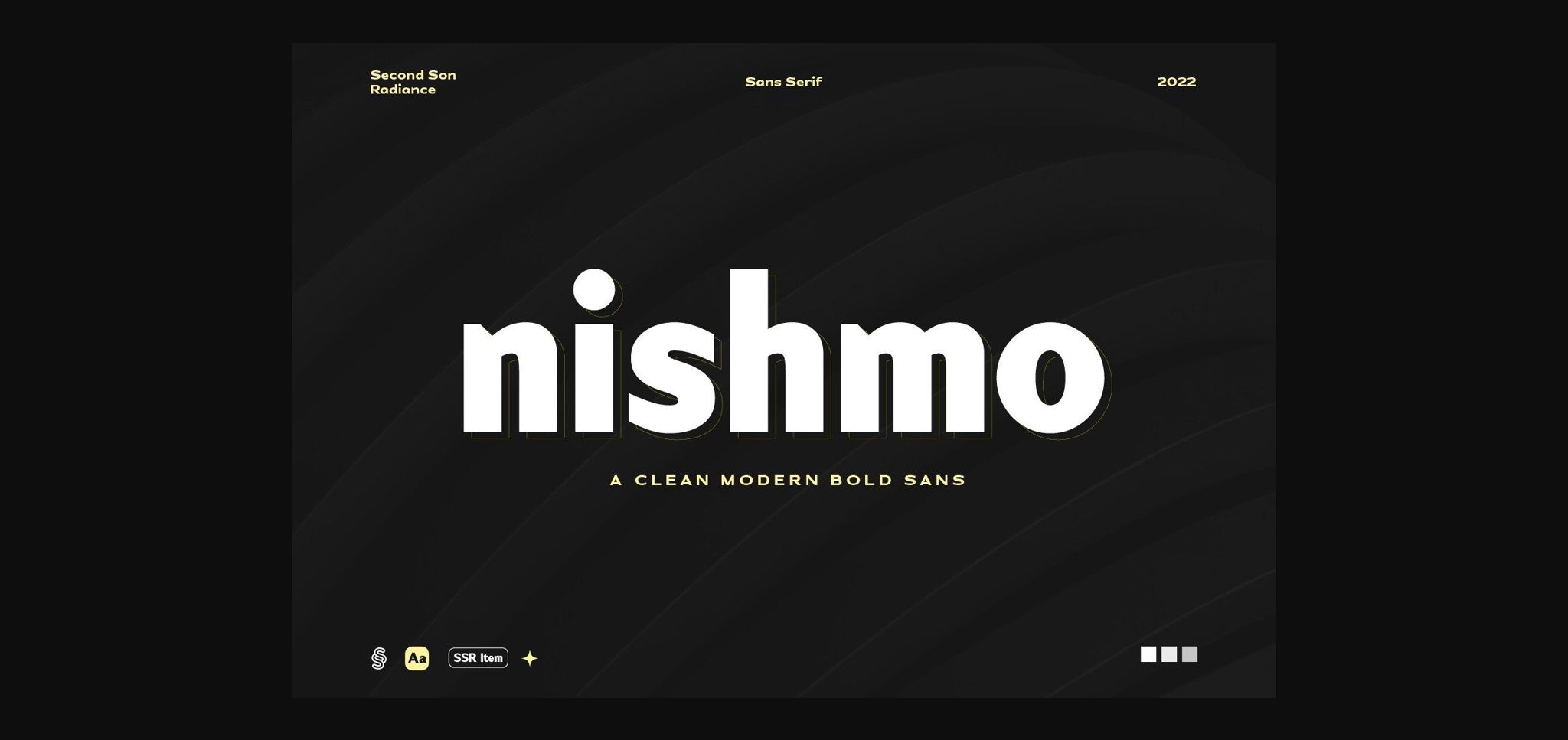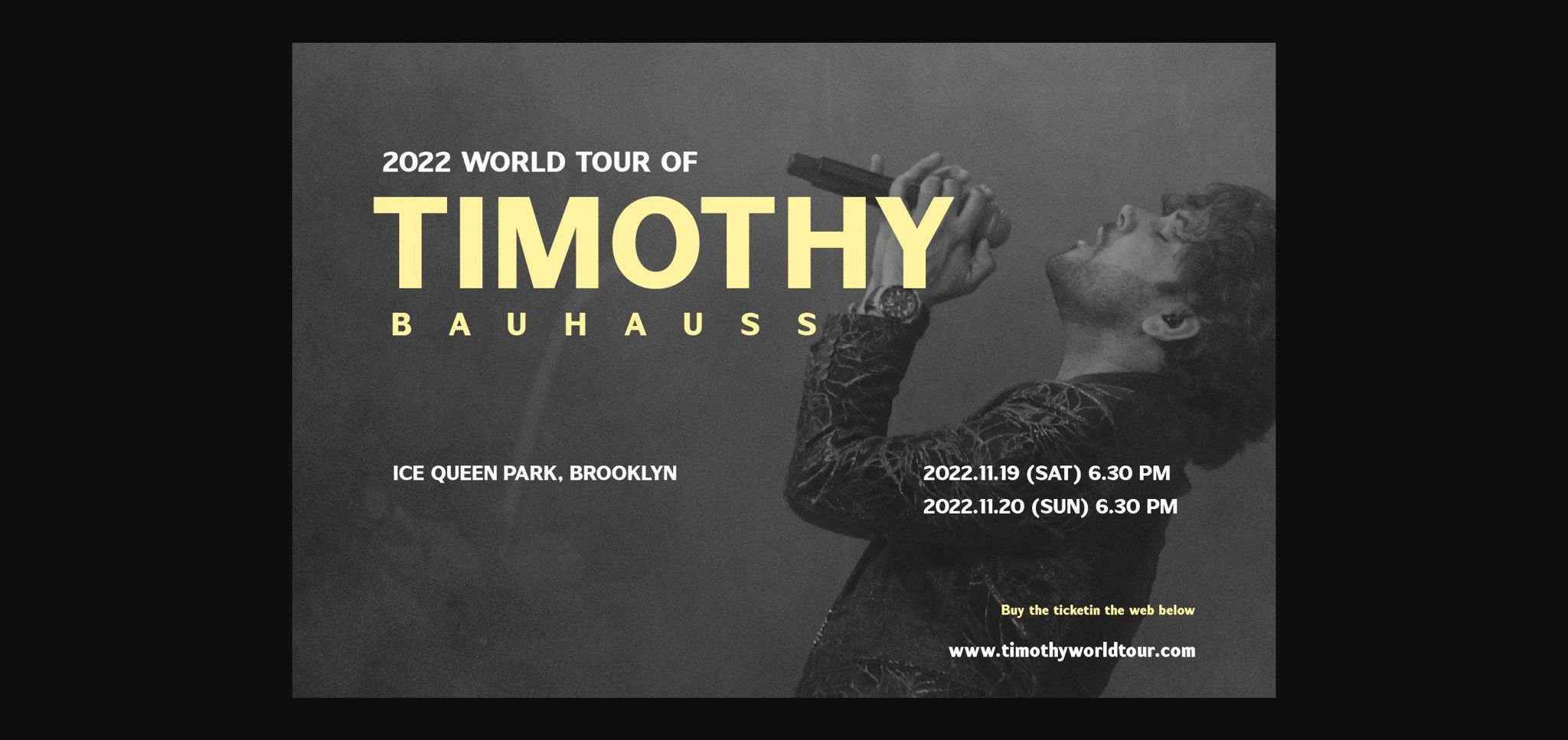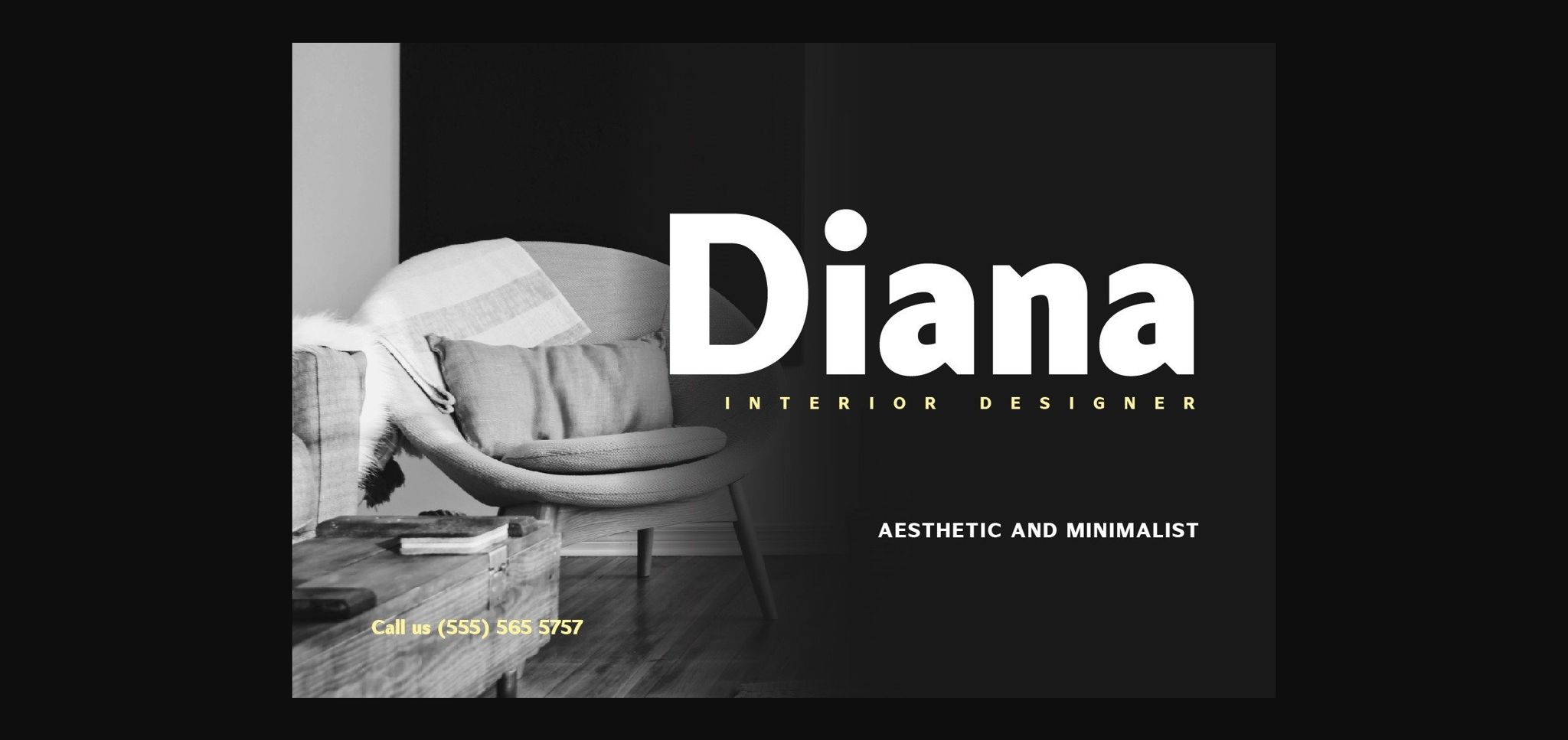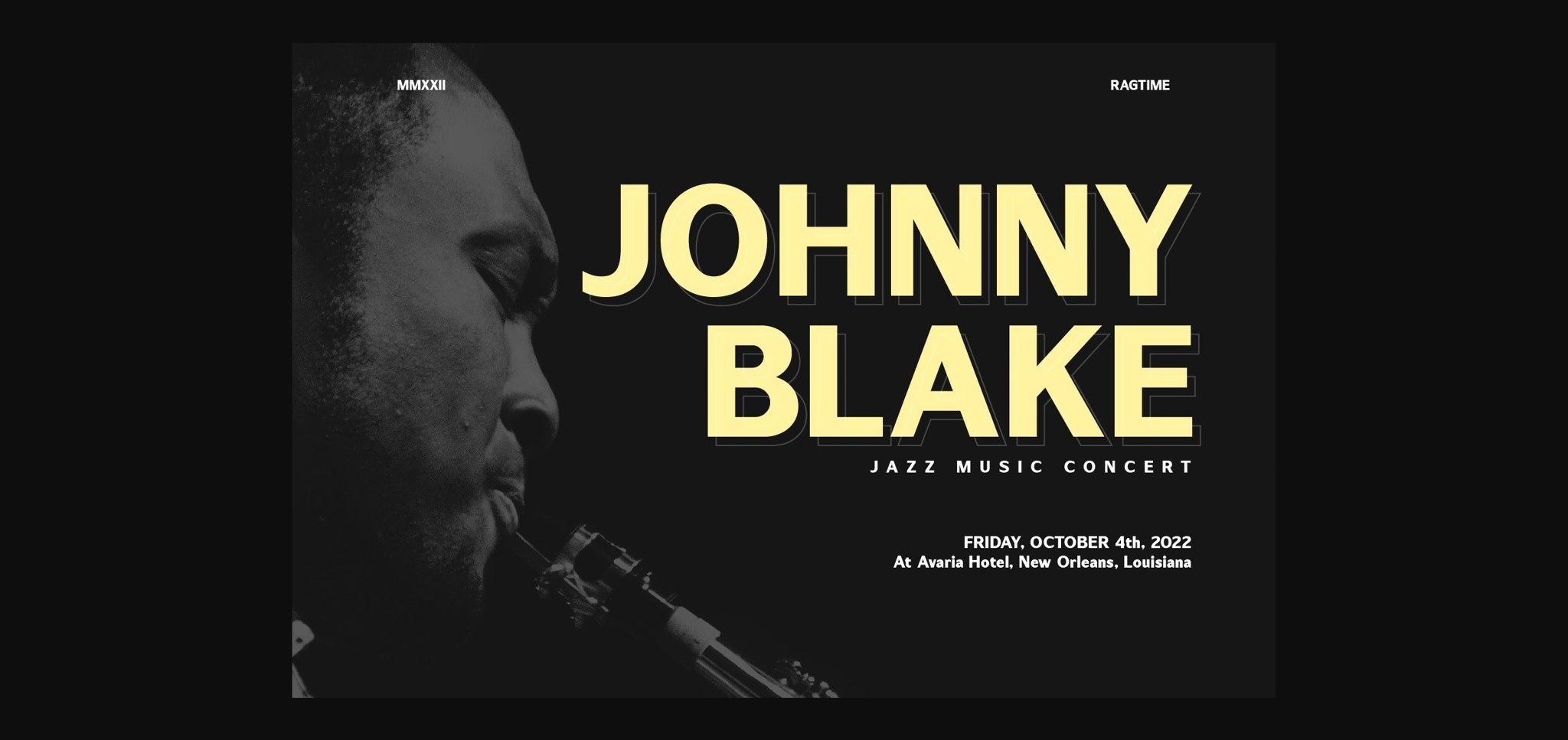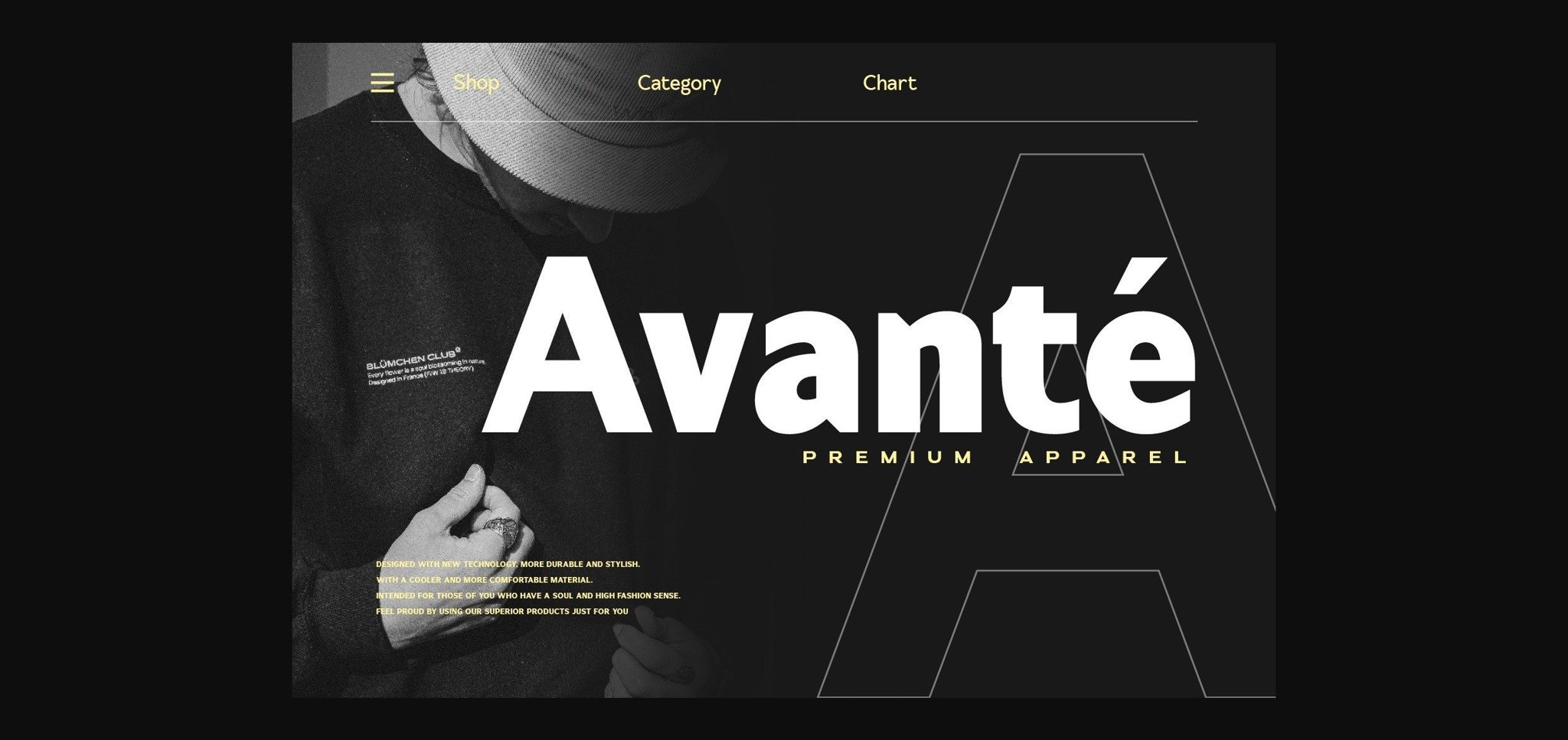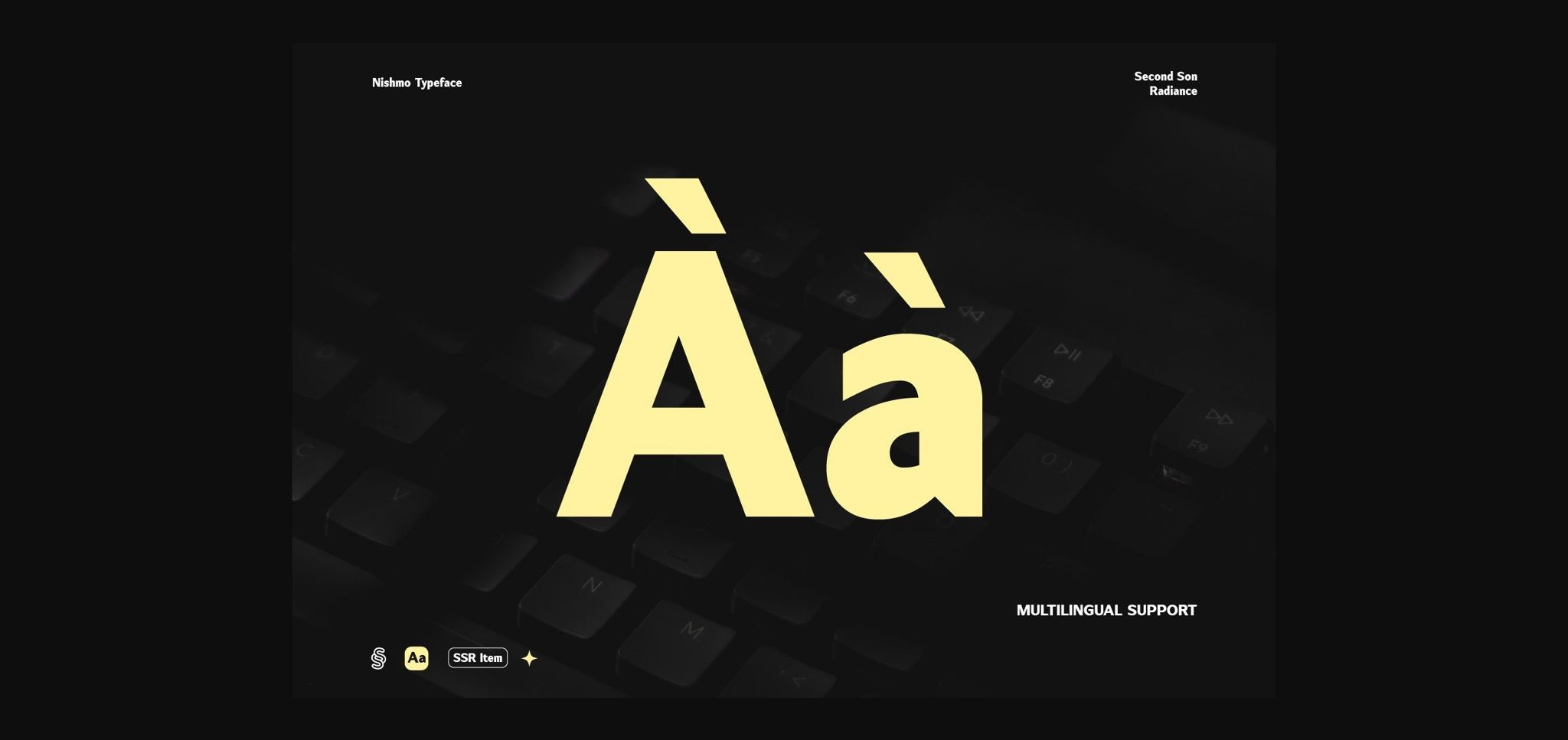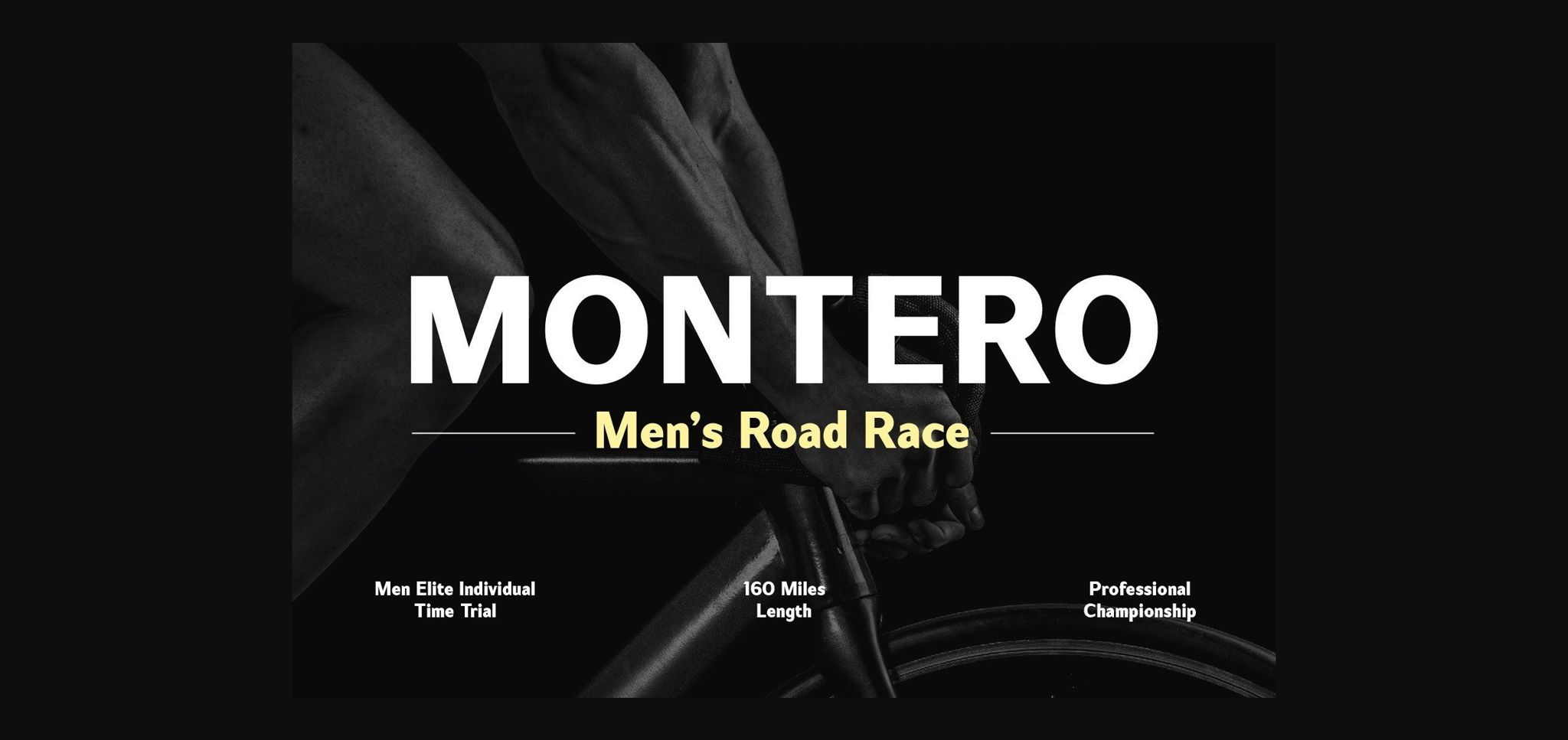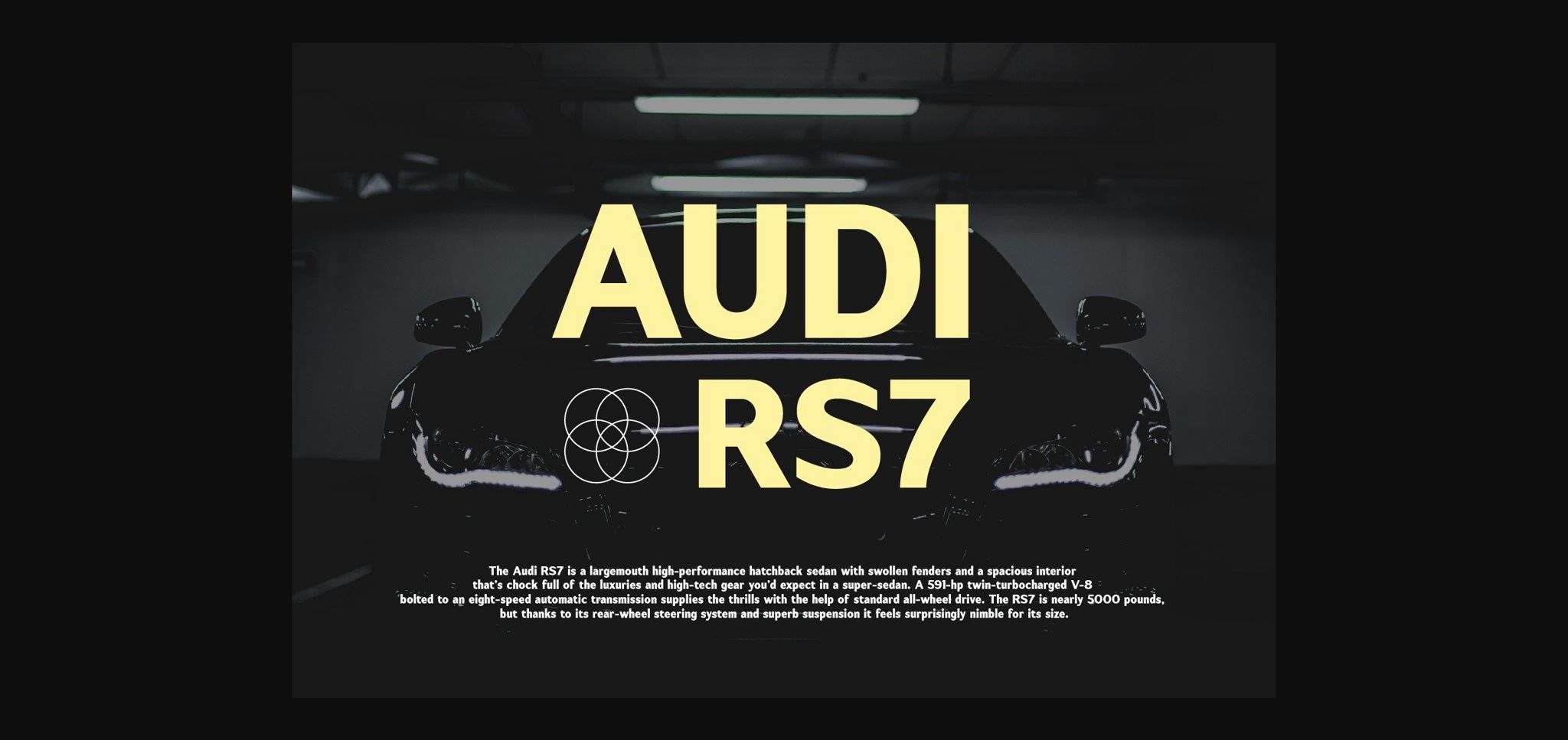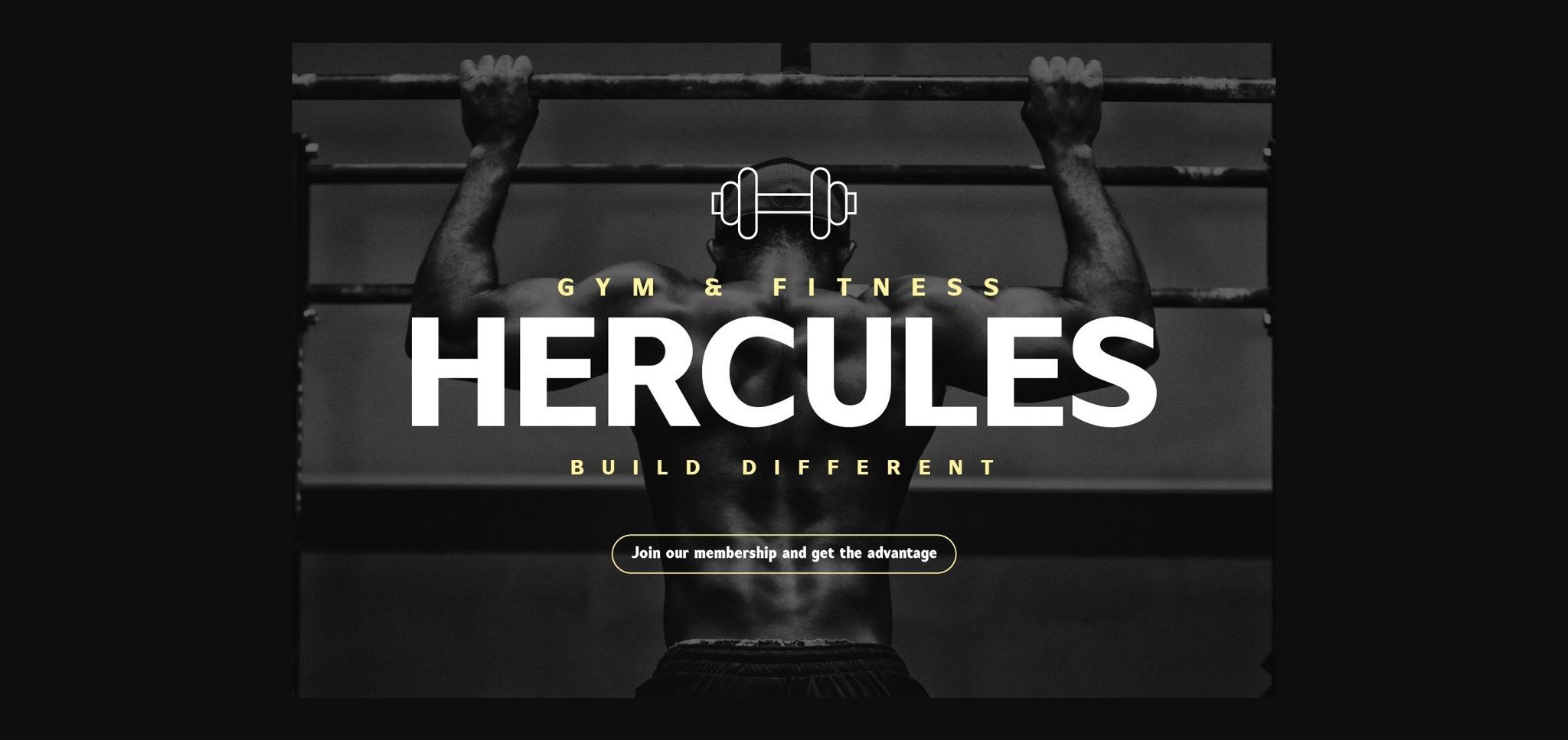
Nishmo Font
About Nishmo Font
Nishmo is a neat and bold sans serif font. Its casual charm makes it appear wonderfully down-to-earth, readable, and, ultimately, incredibly versatile. This will look outstanding in any context, whether it’s being used on busy backgrounds or as a standalone headline!